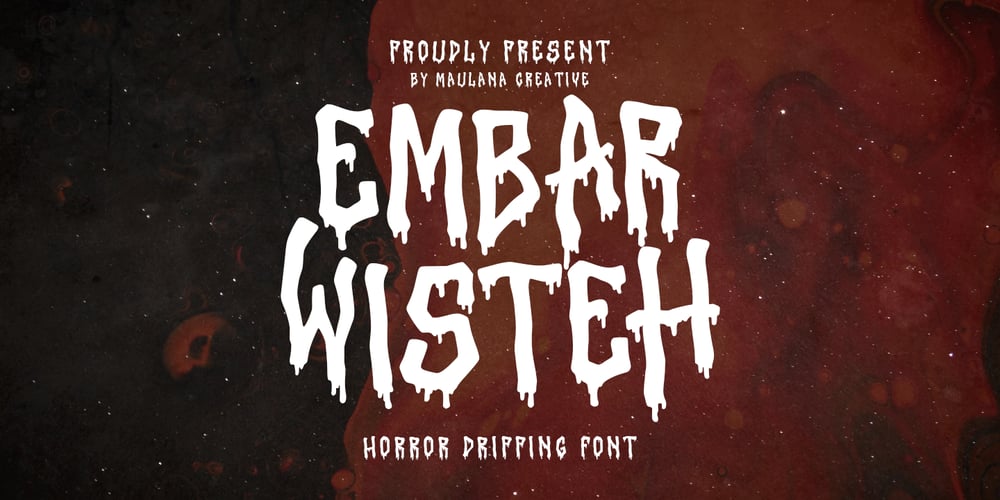
MC Embar Wisteh Font Family was designed by Gilang Maulana and published by Maulana Creative. MC Embar Wisteh contains 1 styles and family package options. Embar Wisteh horror dripping font. Bold stroke, fun character with a bit of ligatures and alternates. To give you an extra creative work. Embar Wisteh horror dripping font support multilingual more than 100+ language. This font is good for logo design, Social media, Movie Titles, Books Titles, a short text even a long text letter and good for your secondary text font with script or serif. Make a stunning work with Embar Wisteh horror dripping font. Cheers,Maulana Creative